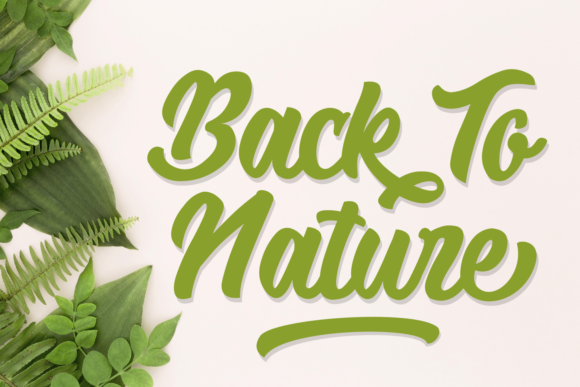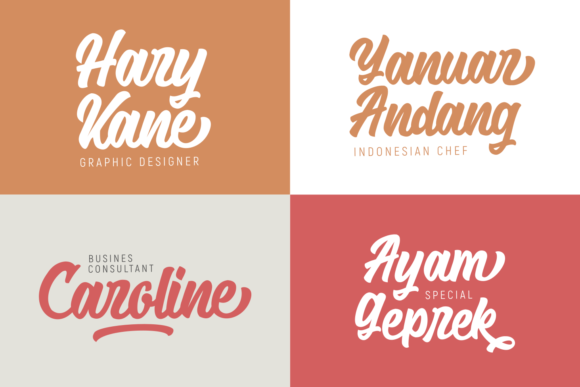
The Hungry Font
db-ku.com - Script & Handwritten -- The Hungry is a vintage styled brushed handwritten font. It is fashionable and beautiful, and as a result, it matches a wide pool of designs.